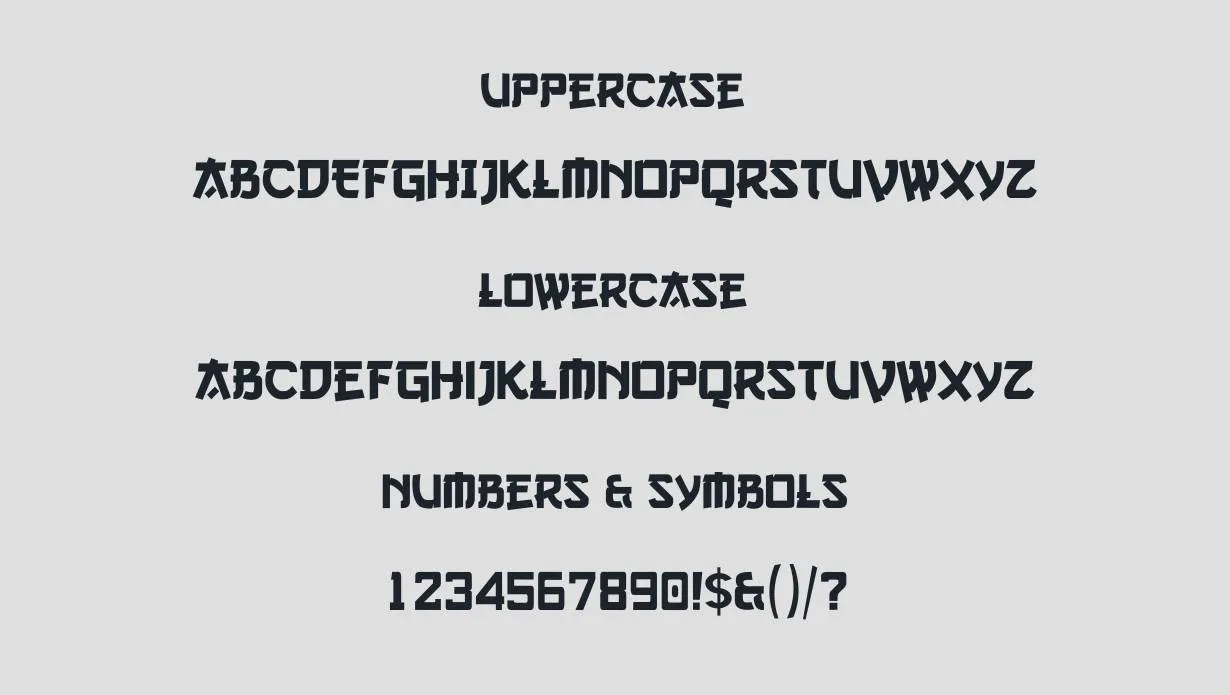
The Gang of Three Font brings a bold and impactful presence to your designs, making it ideal for headlines, banners, or any element that demands attention. Its strong characters add emphasis and power.
| Name | Gang of Three Font |
| Designer | Vic Fieger |